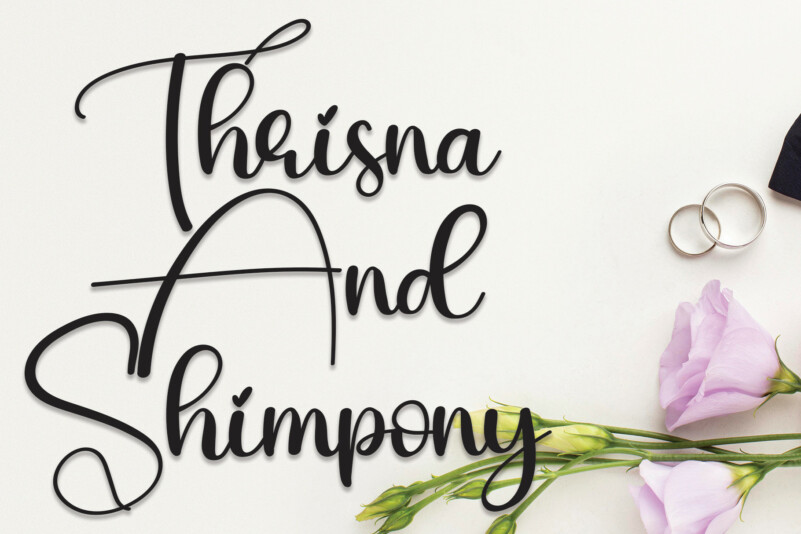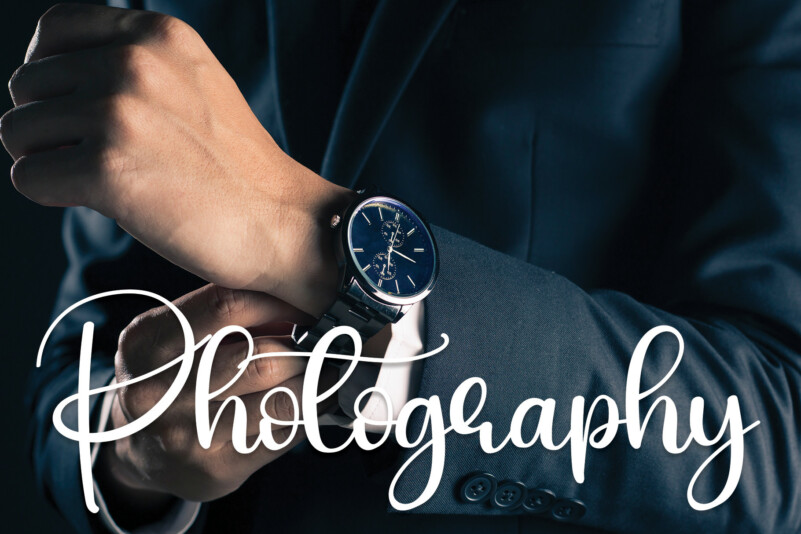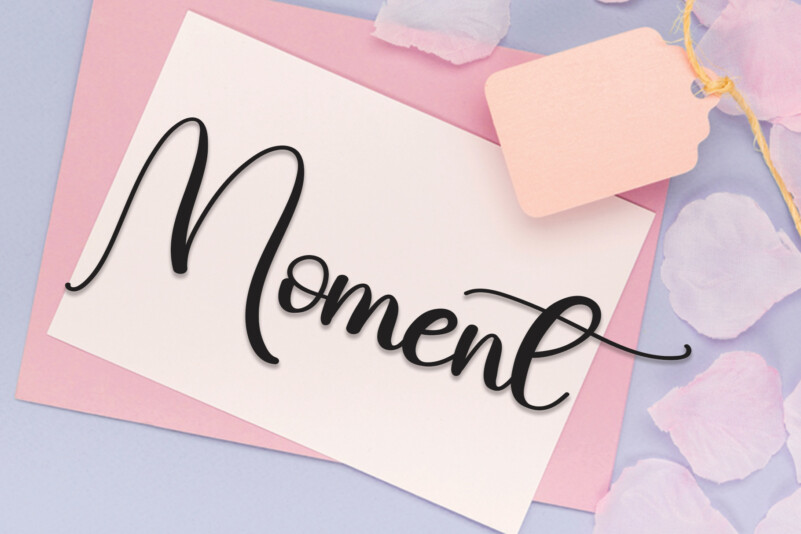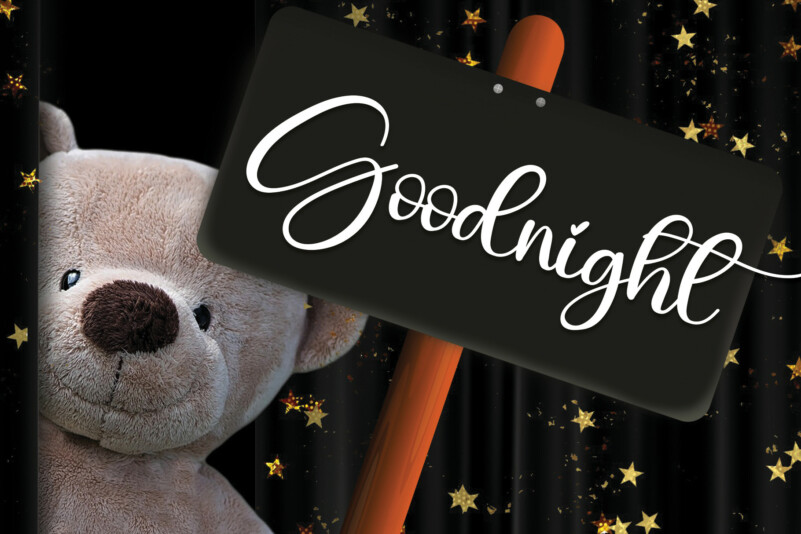
Angel Script Typeface
Angel Script Typeface is an enchanting handwritten font. This versatile script font has a wide spectrum of applications ranging from greeting cards to headlines and is guaranteed to add a romantic feel to your next project.